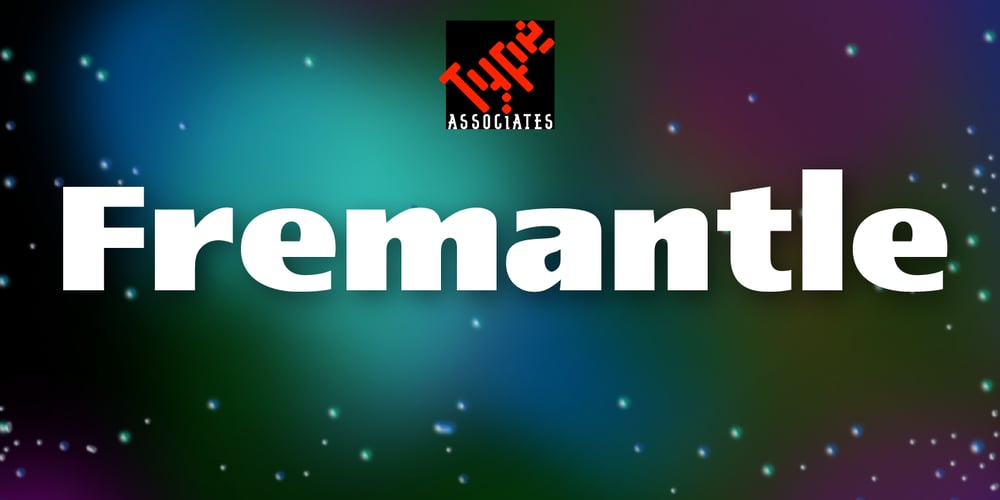
Fremantle
Fremantle font
Fremantle Font Family was designed by Russell Bean and published by Type Associates. Fremantle contains 2 styles and family package options. Its origins obcured, the final Fremantle design resulted from myriad reworkings over decades.